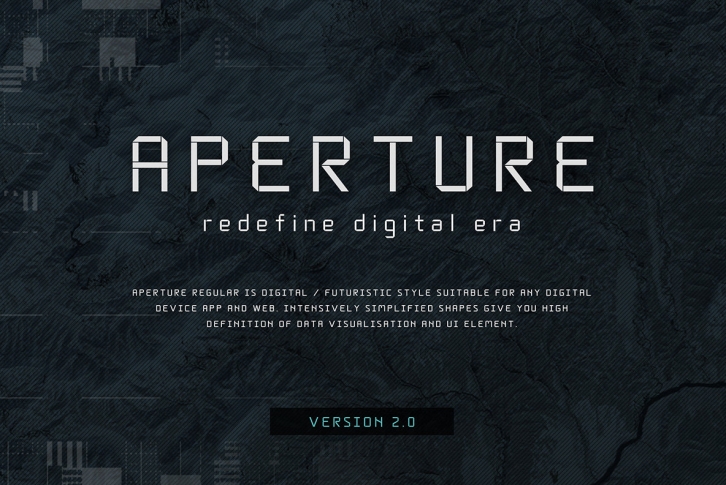
Aperture Regular is a font featuring a digital / futuristic style, suitable for any digital device app or the web. Intensively simplified shapes give you high definition of Data visualisation and UI element. Optimized for small case, down to 9pt.